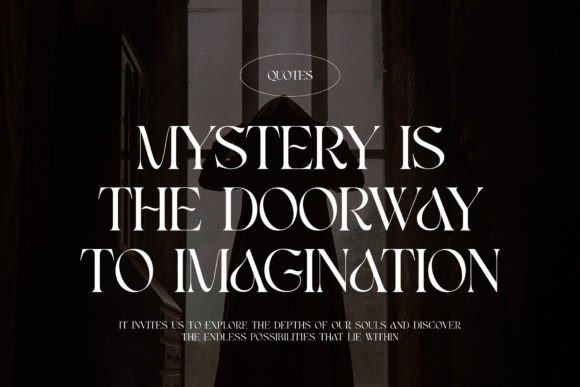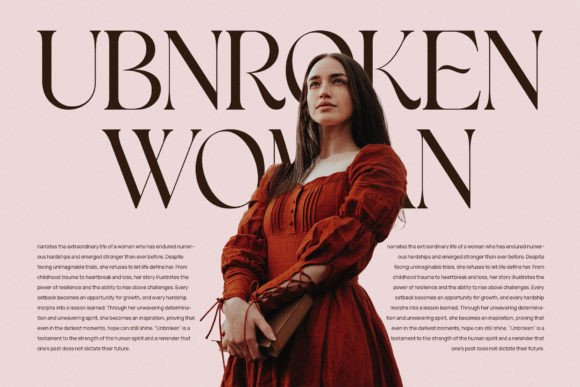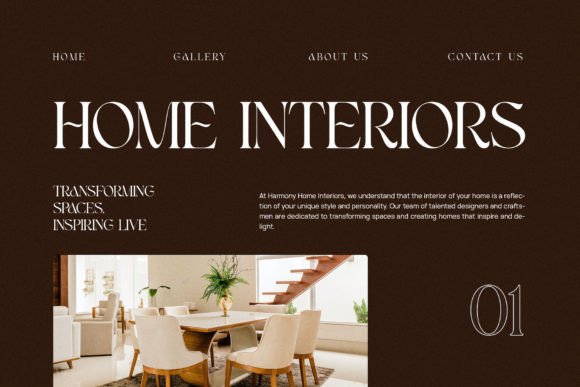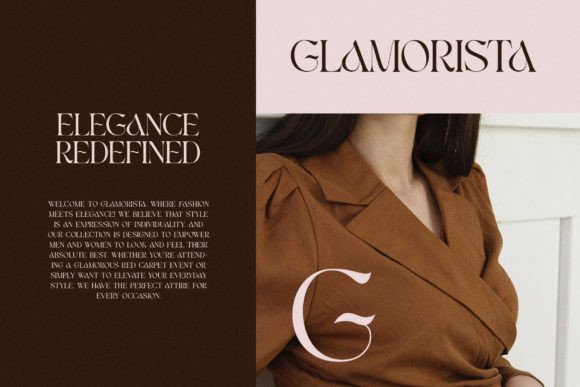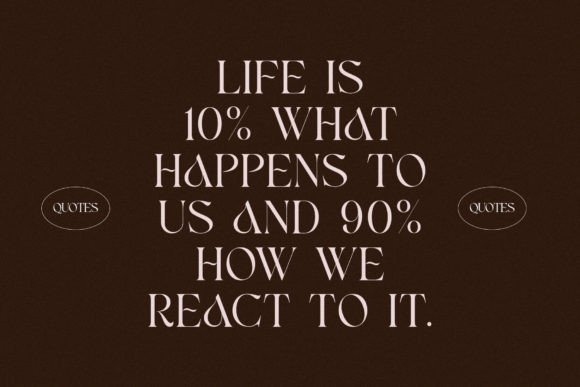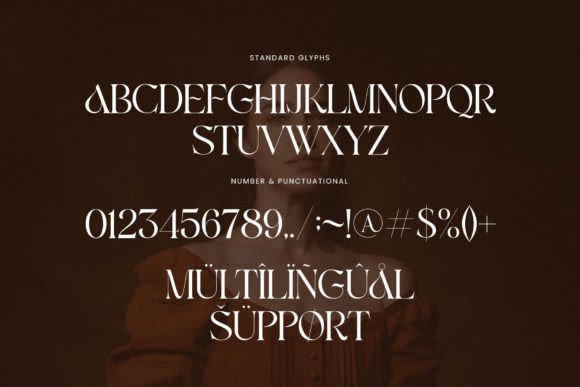
Introducing Acros Font: The Epitome of Elegance and Modernity
In the realm of typography, few fonts manage to strike a balance between elegance and modernity. Acros Font is one such exceptional typeface that seamlessly blends classic serif elements with a contemporary aesthetic. This versatile font is designed to cater to a wide array of design needs, making it an indispensable asset for designers and crafters alike.
The Essence of Acros Font
Acros Font is characterized by its elegant serif typeface, which exudes a sense of sophistication and refinement. The classy and modern style of this font makes it an ideal choice for projects that demand a high level of readability and aesthetic appeal. Whether you’re working on branding projects, logos, wedding designs, social media posts, advertisements, product packaging, product designs, labels, photography, watermarks, invitations, stationery, or any other creative endeavor, Acros Font is sure to elevate your design to new heights.
Key Features of Acros Font
- Elegant Serif Typeface: Acros Font boasts a classic serif design that adds a touch of elegance to any project.
- Classy and Modern Style: The font’s modern aesthetic ensures that your designs look contemporary and sophisticated.
- High Readability: Acros Font is crafted with a high level of readability, making it perfect for body text, headings, and titles.
- Versatility: This font is suitable for a wide range of design applications, from print to digital media.
Design Applications of Acros Font
Acros Font’s versatility makes it an excellent choice for various design projects. Here are some of the ways you can utilize this exceptional font:
- Branding Projects: Establish a strong brand identity with Acros Font’s elegant and modern style.
- Logos: Create a lasting impression with a logo that features Acros Font’s distinctive serif typeface.
- Wedding Designs: Add a touch of sophistication to your wedding designs, including invitations, stationery, and decorations.
- Social Media Posts: Elevate your social media presence with Acros Font’s classy and modern aesthetic.
- Advertisements: Grab attention with Acros Font’s elegant and readable typeface.
- Product Packaging: Make your products stand out with Acros Font’s unique and sophisticated design.
- Product Designs: Incorporate Acros Font into your product designs to add a touch of elegance and modernity.
- Labels: Create labels that exude sophistication and refinement with Acros Font.
- Photography: Add a watermark or overlay text to your photos with Acros Font’s elegant serif typeface.
- Invitations: Design stunning invitations for special occasions with Acros Font’s classy and modern style.
- Stationery: Elevate your stationery designs with Acros Font’s elegant and readable typeface.
Why Choose Acros Font?
With so many fonts available, why should you choose Acros Font for your design projects? Here are a few compelling reasons:
- Unique Design: Acros Font’s elegant serif typeface and modern style set it apart from other fonts.
- Versatility: This font is suitable for a wide range of design applications, making it a valuable addition to your font library.
- Readability: Acros Font is crafted with a high level of readability, ensuring that your designs are easy to read and understand.
- Elegance: The font’s elegant design makes it perfect for projects that demand a touch of sophistication and refinement.
Acros Font is an exceptional typeface that combines elegance and modernity in a unique and sophisticated way. Its versatility, readability, and elegant design make it an ideal choice for a wide range of design projects. Whether you’re a designer or crafter, Acros Font is sure to become a valuable asset in your creative endeavors. So why wait? Explore the possibilities of Acros Font today and elevate your designs to new heights!